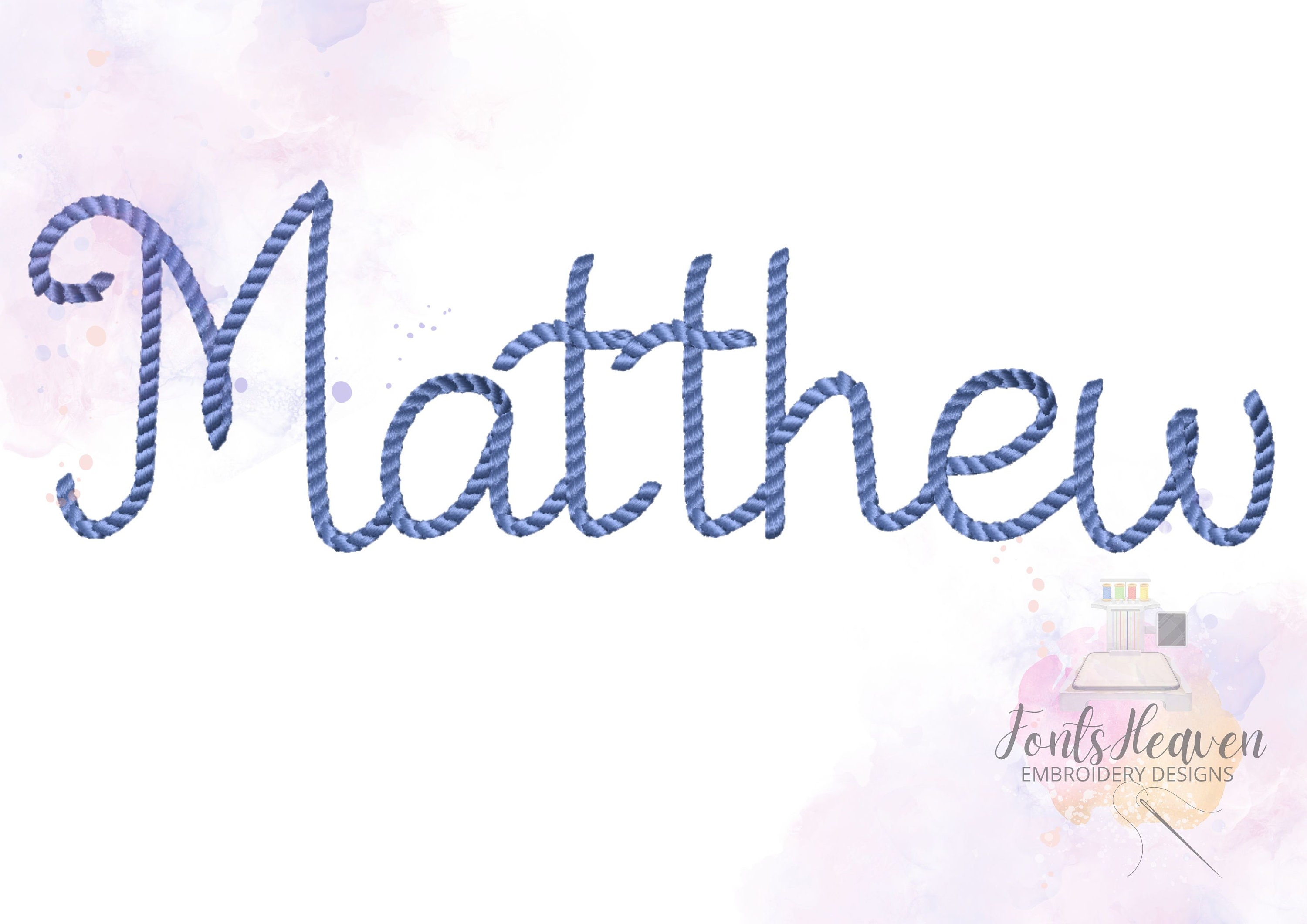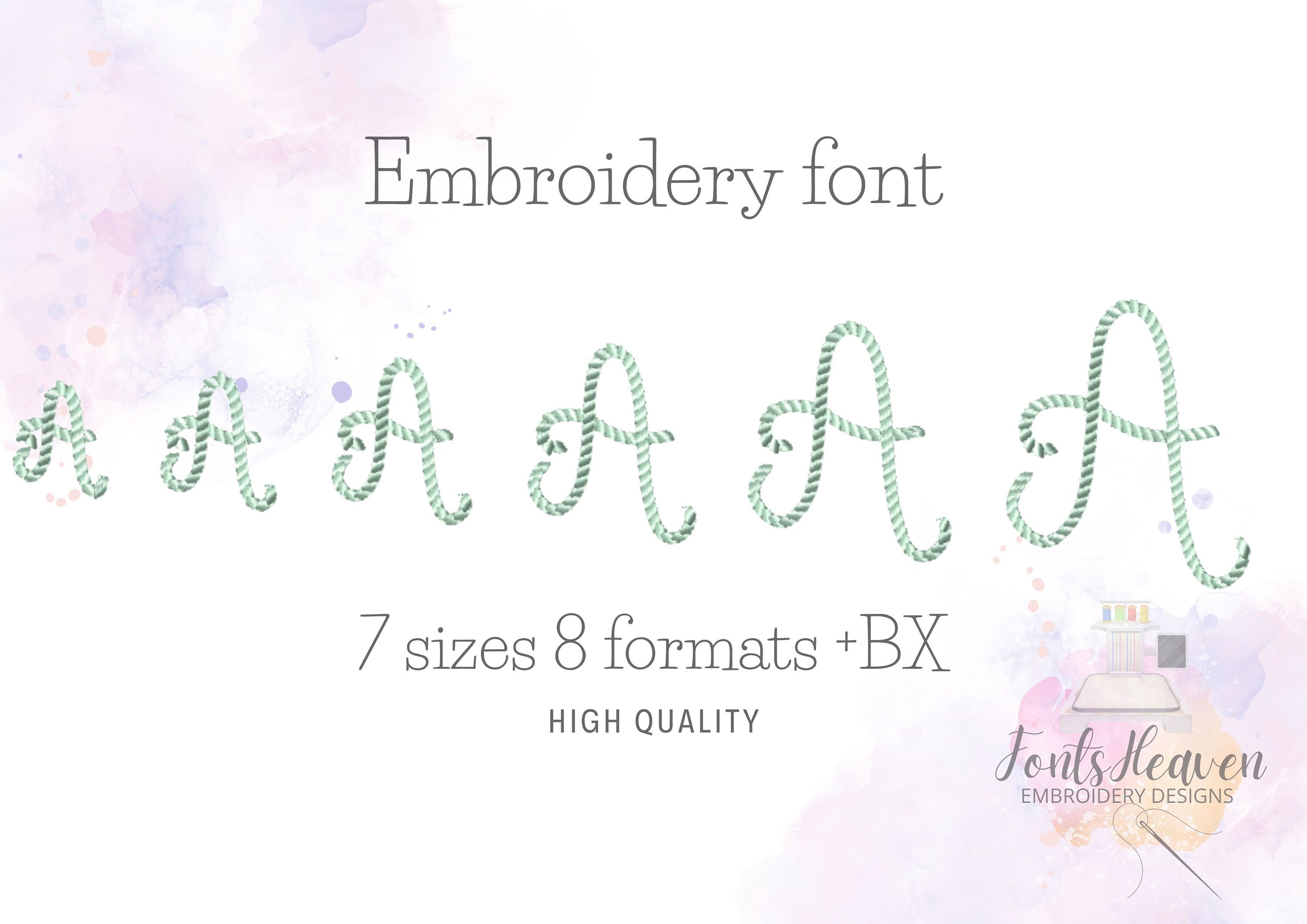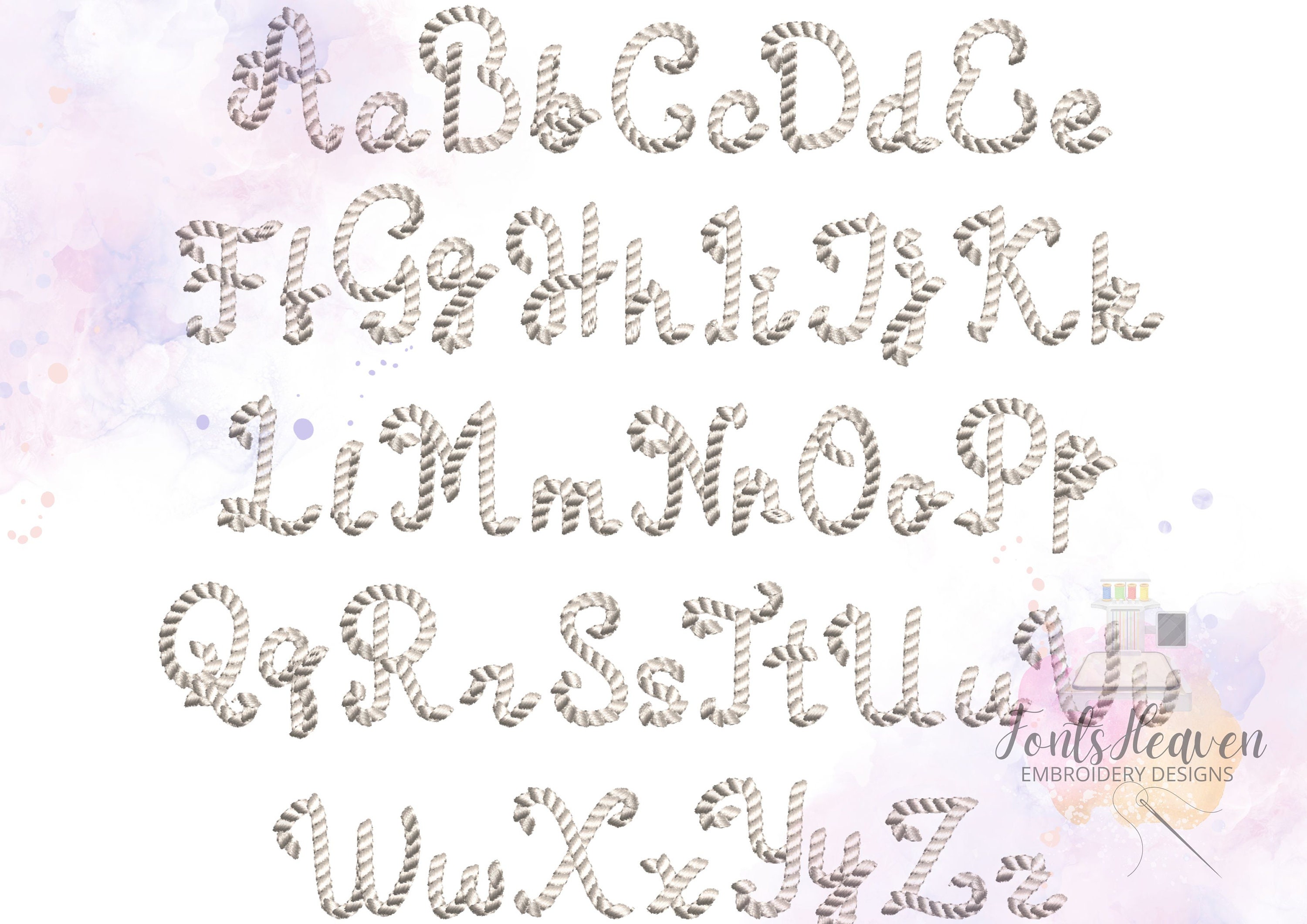
Unique Rope stitch nautical script handwritten FONT Ropetastic Alphabet Monogram machine embroidery designs sizes 1.3 up to 3.2 inches BX
Entire alphabet uppercase and lowercase letters.